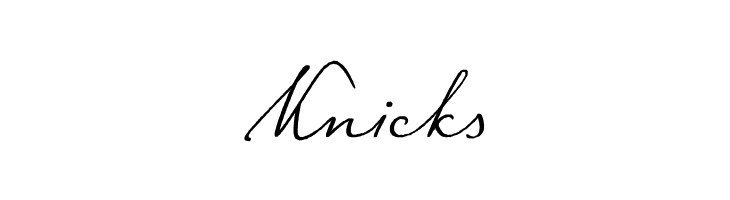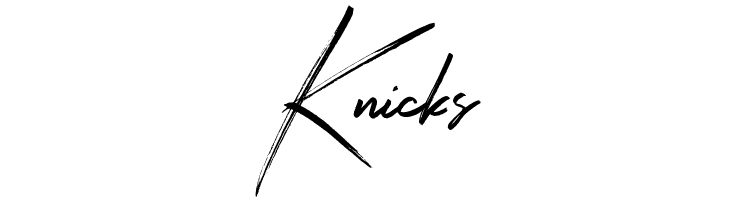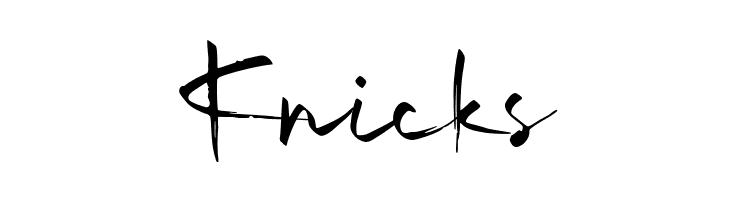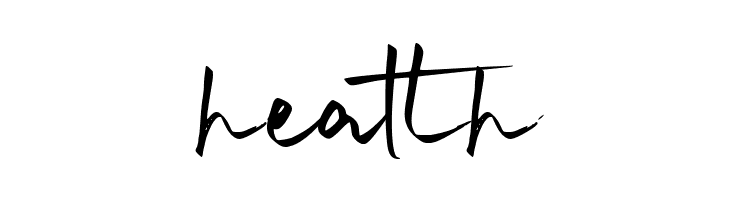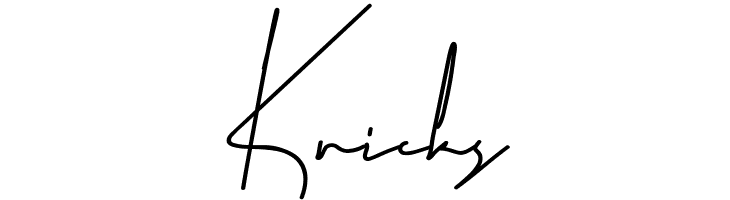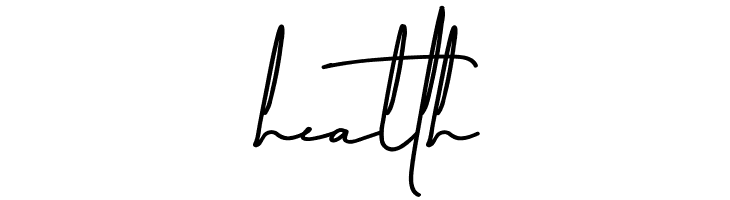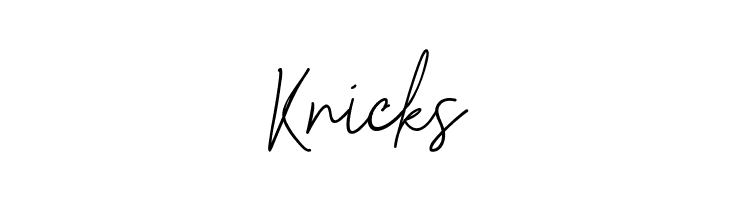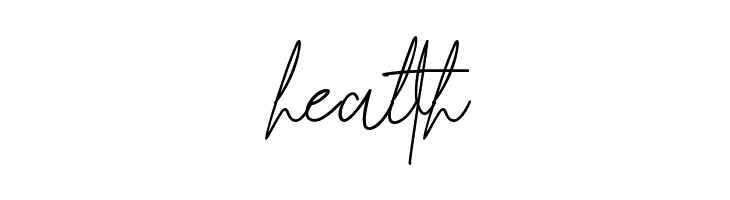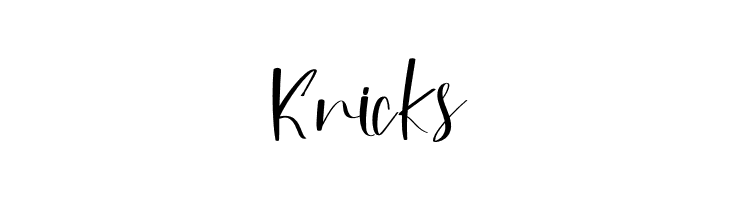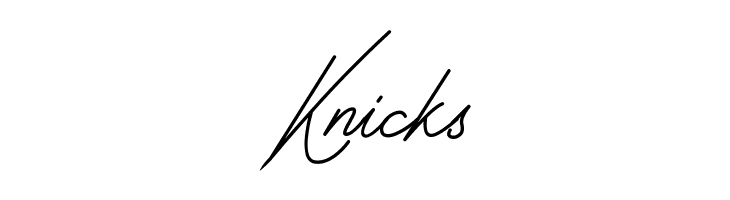
A dynamic and flowing script font with elegant, elongated letterforms.
A dynamic, expressive handwritten font with varied strokes and artistic flair.
Expressive handwritten script with signature-like flair.
A stylish and elegant script font with fluid, connected letterforms.
A fluid, cursive font with an elegant, signature-like style.
A dynamic, cursive font with fluid strokes and a handwritten feel.
A flowing, elegant cursive font with interconnected characters.
A sophisticated handwritten font with fluid, continuous strokes and a modern elegance.